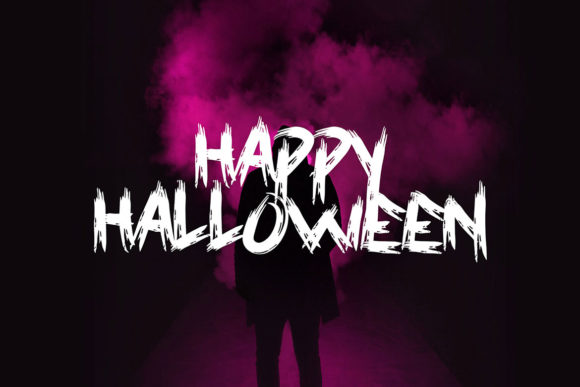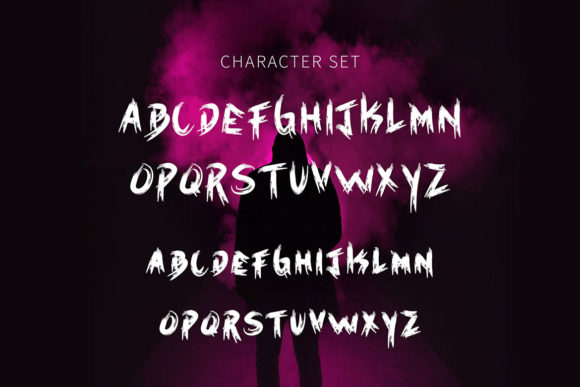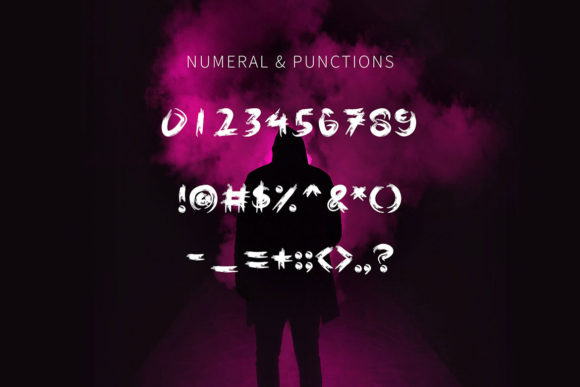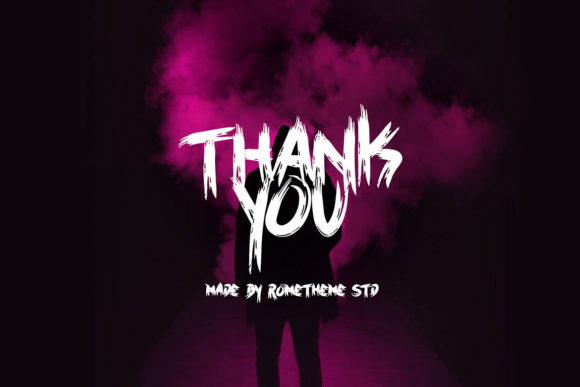
Introducing Halloweins Font: The Spooky yet Powerful Brushed Display Font
Are you looking for a font that can add a touch of spookiness and boldness to your designs? Look no further than Halloweins Font, a brushed display font that’s rough, a bit scary, and sure to make your creations stand out. In this article, we’ll dive into the world of Halloweins Font, exploring its features, uses, and benefits for designers and crafters.
What is Halloweins Font?
Halloweins Font is a unique, hand-crafted font that’s perfect for creating powerful and breathtaking designs. Its brushed texture gives it a rough, organic feel that’s reminiscent of hand-painted signs and eerie Halloween decorations. With its bold and chunky letters, Halloweins Font is sure to grab attention and make a statement.
Features of Halloweins Font
So, what makes Halloweins Font so special? Here are just a few of its key features:
- Brushed texture: Halloweins Font has a distinctive brushed texture that gives it a rough, hand-crafted feel.
- Bold and chunky letters: The font’s bold and chunky letters make it perfect for creating eye-catching designs that demand attention.
- Spooky and eerie feel: Halloweins Font has a spooky and eerie feel that’s perfect for Halloween-themed designs, but can also be used for other projects that require a bold and edgy look.
- Easy to read: Despite its bold and chunky letters, Halloweins Font is surprisingly easy to read, making it perfect for use in a variety of design projects.
Uses of Halloweins Font
So, what can you use Halloweins Font for? The possibilities are endless, but here are a few ideas to get you started:
- Halloween-themed designs: Halloweins Font is perfect for creating spooky and eye-catching designs for Halloween, including invitations, posters, and decorations.
- Event branding: Use Halloweins Font to create bold and eye-catching branding for events, such as concerts, festivals, and parties.
- Signage and advertising: Halloweins Font is perfect for creating eye-catching signs and advertisements that demand attention.
- Packaging and product design: Use Halloweins Font to add a bold and edgy touch to your packaging and product designs.
Benefits of Using Halloweins Font
So, why should you choose Halloweins Font for your design projects? Here are just a few benefits:
- Unique and eye-catching: Halloweins Font is a unique and eye-catching font that’s sure to make your designs stand out.
- Versatile: Halloweins Font can be used for a wide range of design projects, from Halloween-themed designs to event branding and signage.
- High-quality: Halloweins Font is a high-quality font that’s designed to produce crisp and clear results, even at large sizes.
Tips for Using Halloweins Font
Here are a few tips for getting the most out of Halloweins Font:
- Use it boldly: Halloweins Font is a bold font, so don’t be afraid to use it boldly and make a statement.
- Experiment with colors: Halloweins Font looks great in a variety of colors, so don’t be afraid to experiment and find the perfect color for your design.
- Pair it with other fonts: Halloweins Font can be paired with other fonts to create a unique and eye-catching look.
In conclusion, Halloweins Font is a powerful and breathtaking brushed display font that’s perfect for designers and crafters who want to add a touch of spookiness and boldness to their designs. With its unique brushed texture, bold and chunky letters, and spooky and eerie feel, Halloweins Font is sure to make your designs stand out. Whether you’re creating Halloween-themed designs, event branding, signage, or packaging and product designs, Halloweins Font is a great choice.